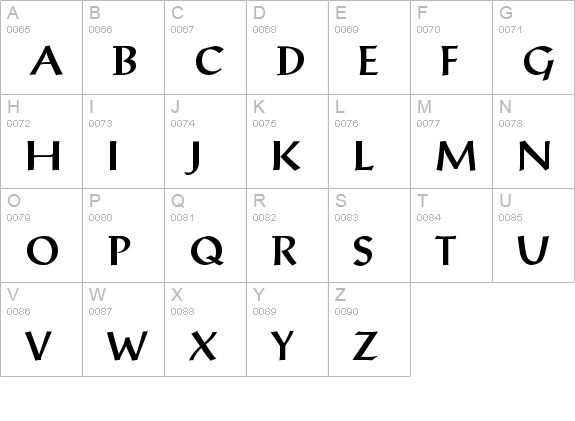
12 Post Antiqua Bold 07554 is a strong, high-contrast variant in the 12 typeface family \xE2\x80\x94 well suited to headlines, attention-grabbing titles, and strong calls-to-action.
The 12 Post Antiqua Bold 07554 font is a striking and versatile typeface that exudes elegance and sophistication. With its bold and distinctive letterforms, this font is perfect for making a bold statement in your design projects. Whether you're creating posters, logos, headlines, or any other design element, the 12 Post Antiqua Bold 07554 font is sure to make a memorable impression. What's even better is that this font is available for free download at FontsMarket.com. You can easily access and use this high-quality font in your projects without any cost. Don't miss out on the opportunity to enhance your designs with the timeless appeal of the 12 Post Antiqua Bold 07554 font. Download it now and elevate your design game to the next level!